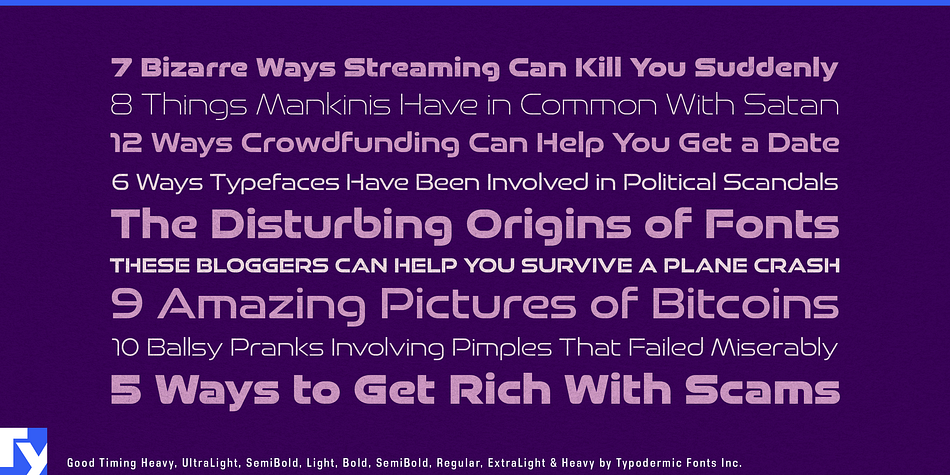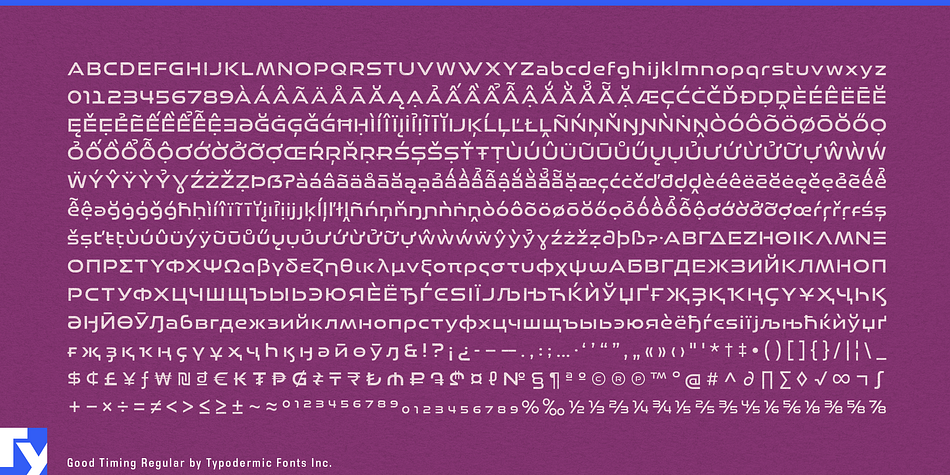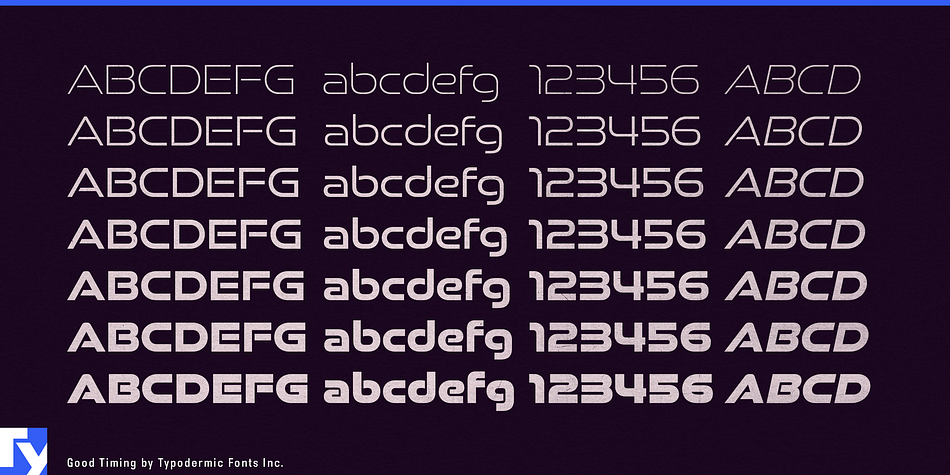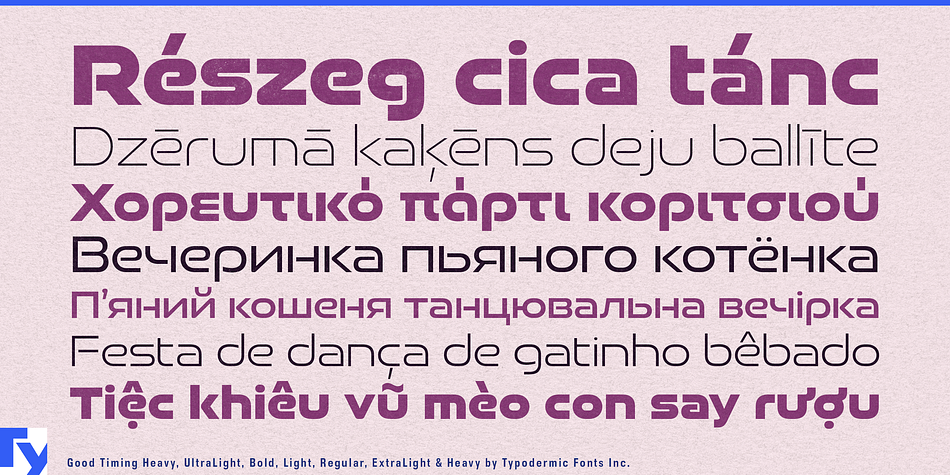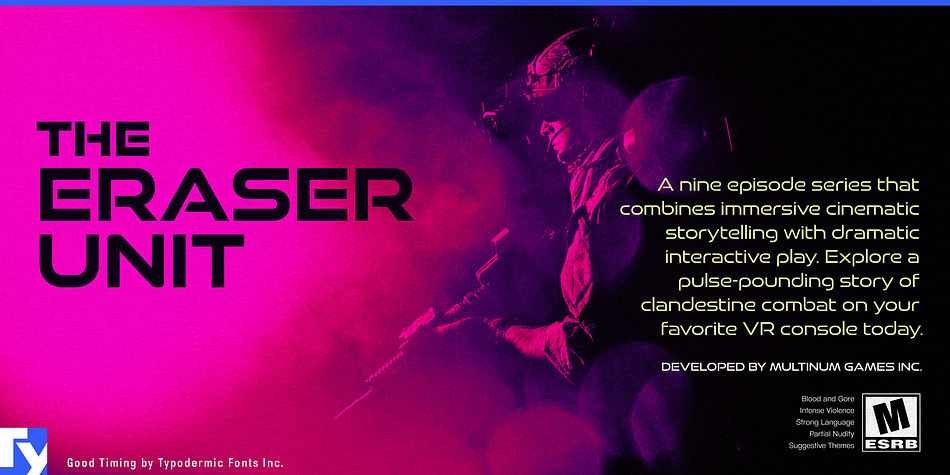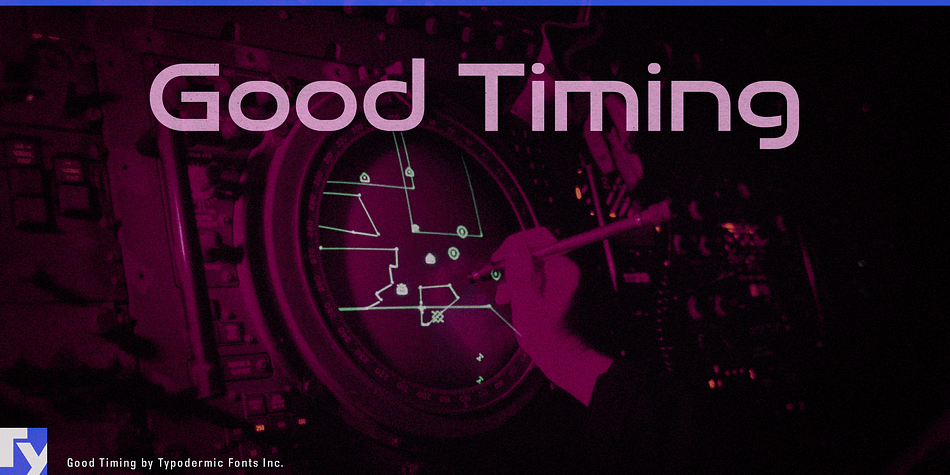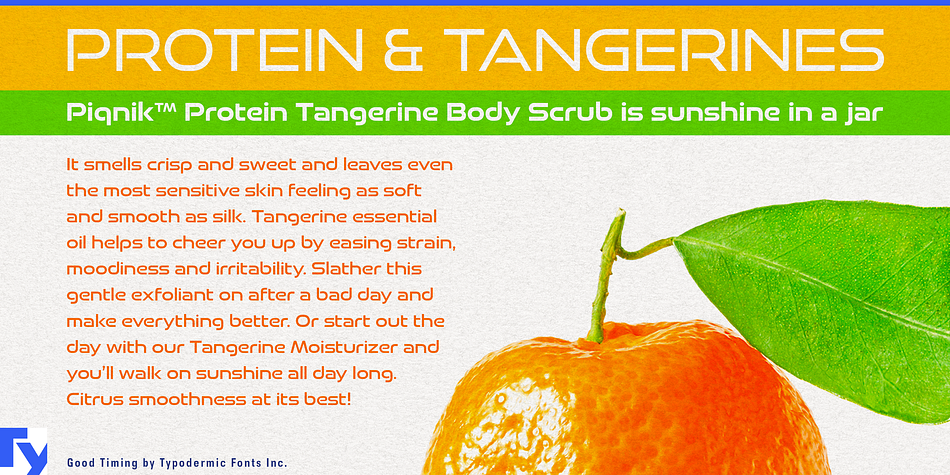
Designed by Ray Larabie, Good Timing is a display sans font family. This typeface has fourteen styles and was published by Typodermic Fonts Inc.
Good Timing is based on an ultramodern typeface called Good Times from 1998. This version has more streamlined capitals, a more dynamic weight range and a matching lowercase. Mathematical symbols, fractions, numeric ordinals and monetary symbols are in good supply. Almost all current Latin based languages are supported, including Vietnamese, Cyrillic languages and Greek. The commercial use desktop license for Good Timing Bold is free.